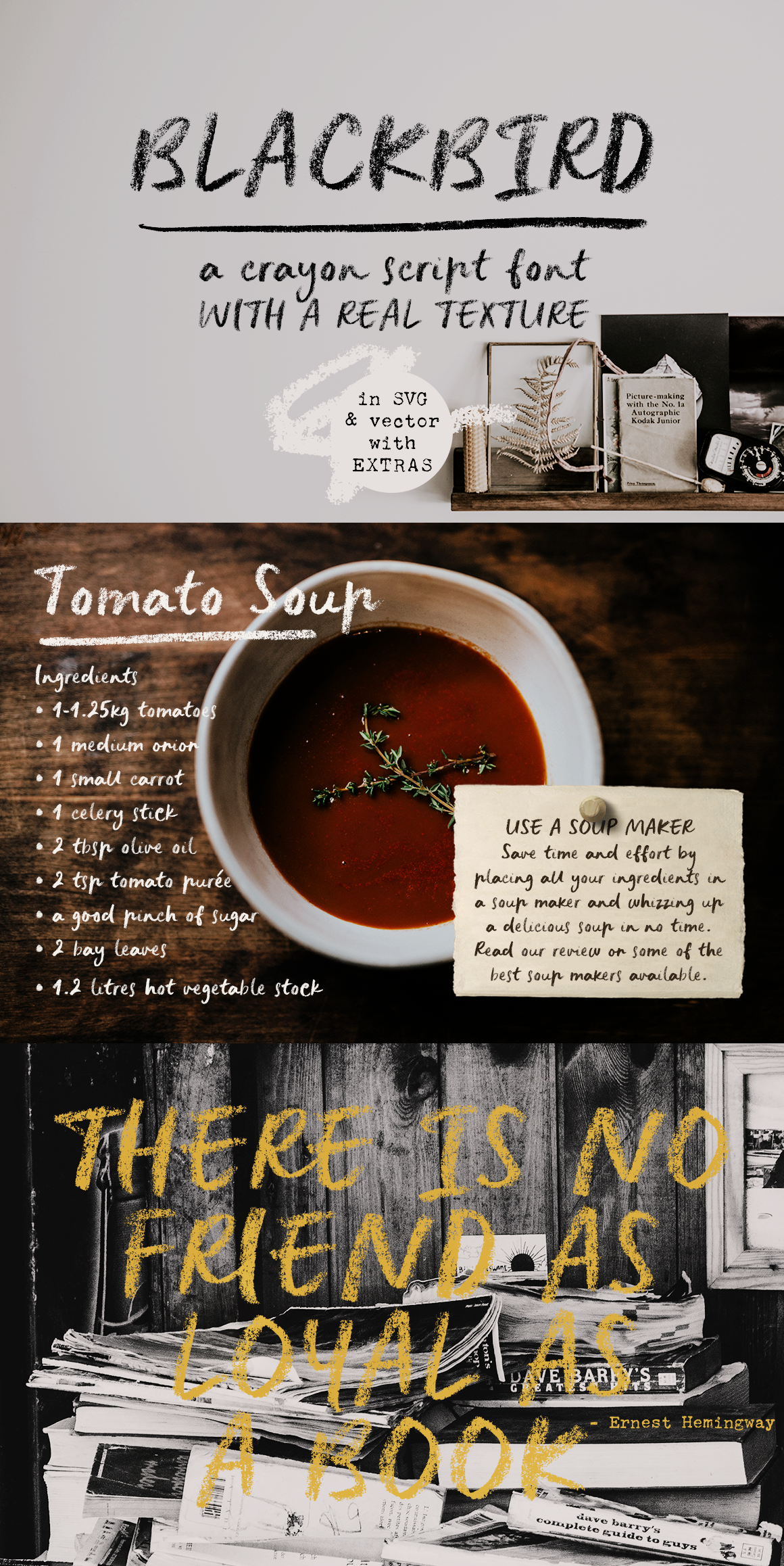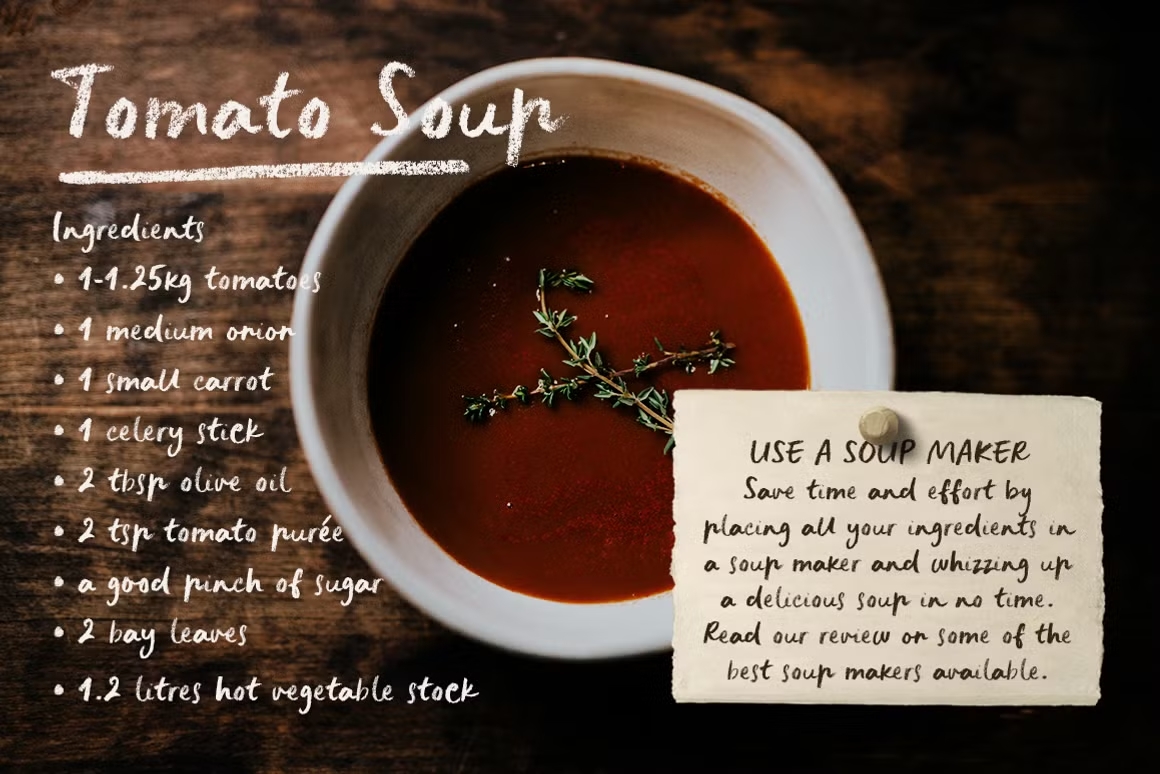
Blackbird Crayon Script SVG Font
Blackbird Crayon Script SVG Font excels in children's book illustrations, elementary school educational materials, kindergarten classroom decorations, playful childcare branding, creative art therapy programs, whimsical children's party invitations, imaginative kids' product packaging, colorful educational app interfaces, nurturing child development centers, and artistic children's workshop materials. This playful typeface brings childhood creativity and artistic imagination to any kid-focused design project.
Blackbird Crayon Script SVG Font is exciting because it captures the pure joy and unbridled creativity of childhood artistic expression, featuring hand-drawn letterforms that look like they were lovingly created by a child's crayon, complete with the charming imperfections and authentic energy that make children's artwork so endearing. Its playful character instantly evokes nostalgia, creativity, and the beautiful innocence of childhood imagination.
Blackbird Crayon Script SVG Font family includes Regular weight with artistic alternates, crayon-textured variations, childhood flourishes, and playful ornamental elements that enhance the hand-drawn aesthetic, providing children's designers with authentic tools for creating typography that celebrates the natural creativity and artistic spirit that emerges when children express themselves through art and imagination.
Children's education designers appreciate Blackbird Crayon Script SVG Font for its exceptional ability to convey childhood authenticity and creative expression through charmingly crafted letterforms. The font's artistic character and crayon texture create immediate associations with childhood creativity, art class memories, and the pure joy that children experience when they create art with their own hands using simple materials like crayons.
The design philosophy behind Blackbird Crayon Script SVG Font celebrates the fundamental importance of artistic expression in child development and the beautiful creativity that emerges when children are given freedom to explore their imagination through art, making it particularly effective for educational institutions, children's brands, and creative programs that support artistic development. Education teams working on creative learning find this font essential.
Whether used for children's educational materials, art therapy programs, or creative kids' products, Blackbird Crayon Script SVG Font delivers the perfect combination of childhood authenticity and artistic charm. Its playful appeal and hand-drawn character make it an indispensable choice for organizations that support children's creativity, celebrate artistic expression, and honor the beautiful imagination that makes childhood such a magical time of discovery and creative exploration.